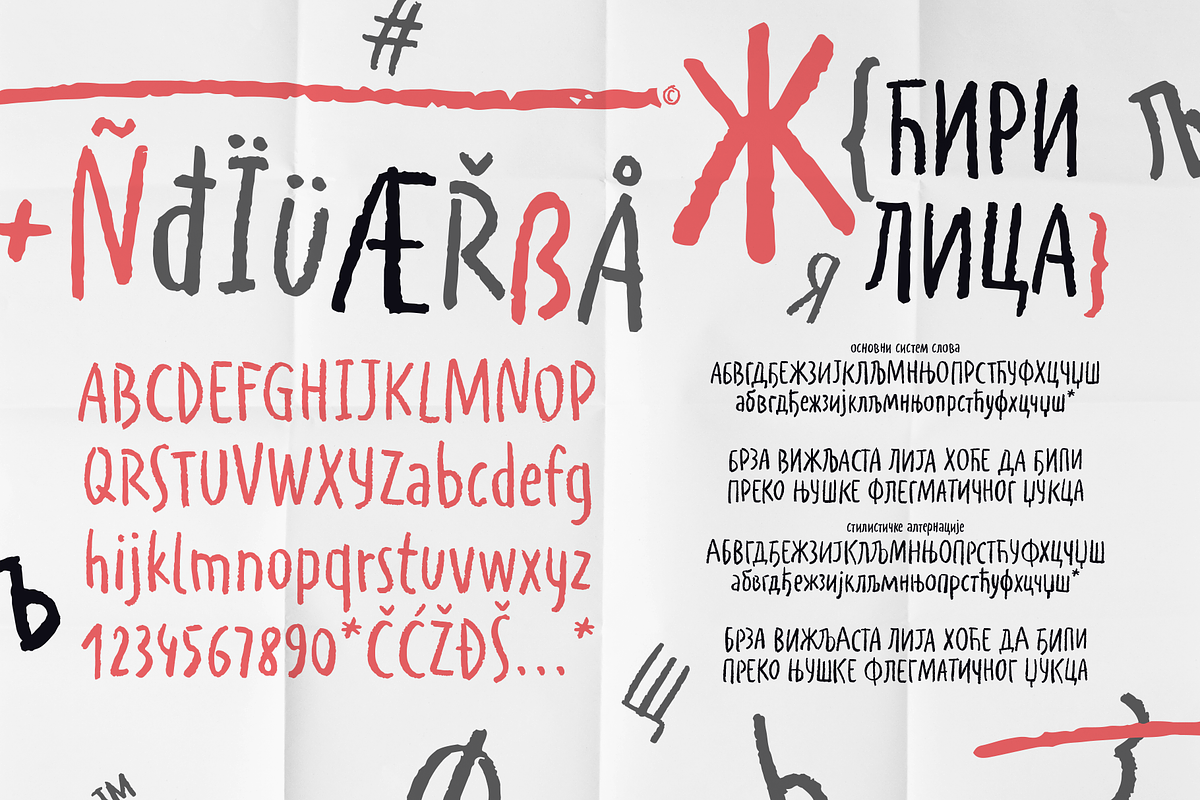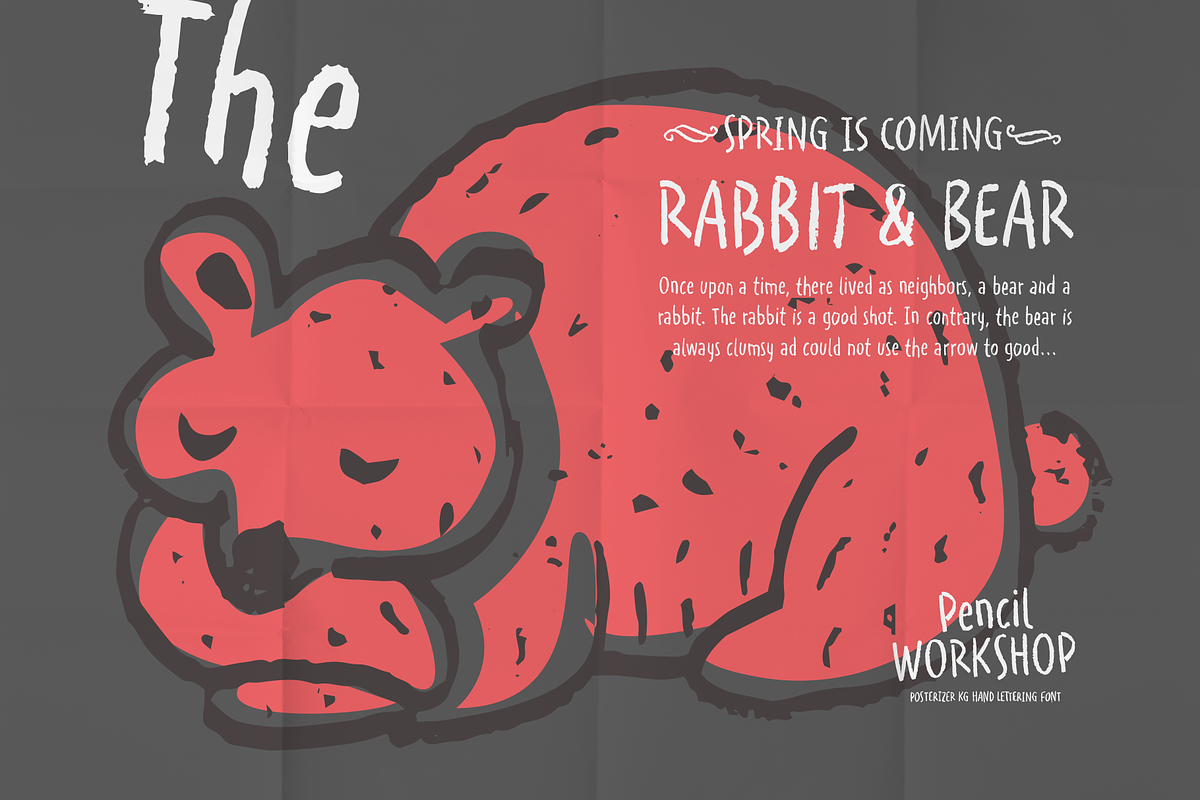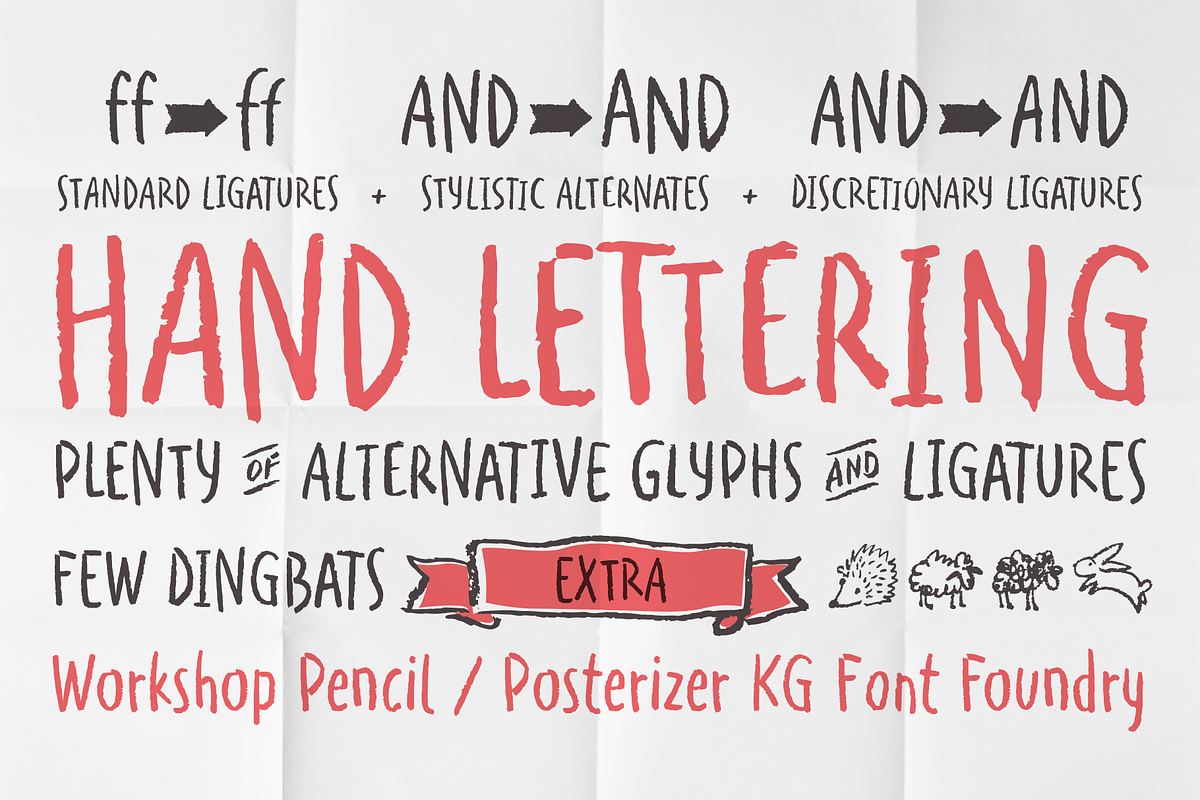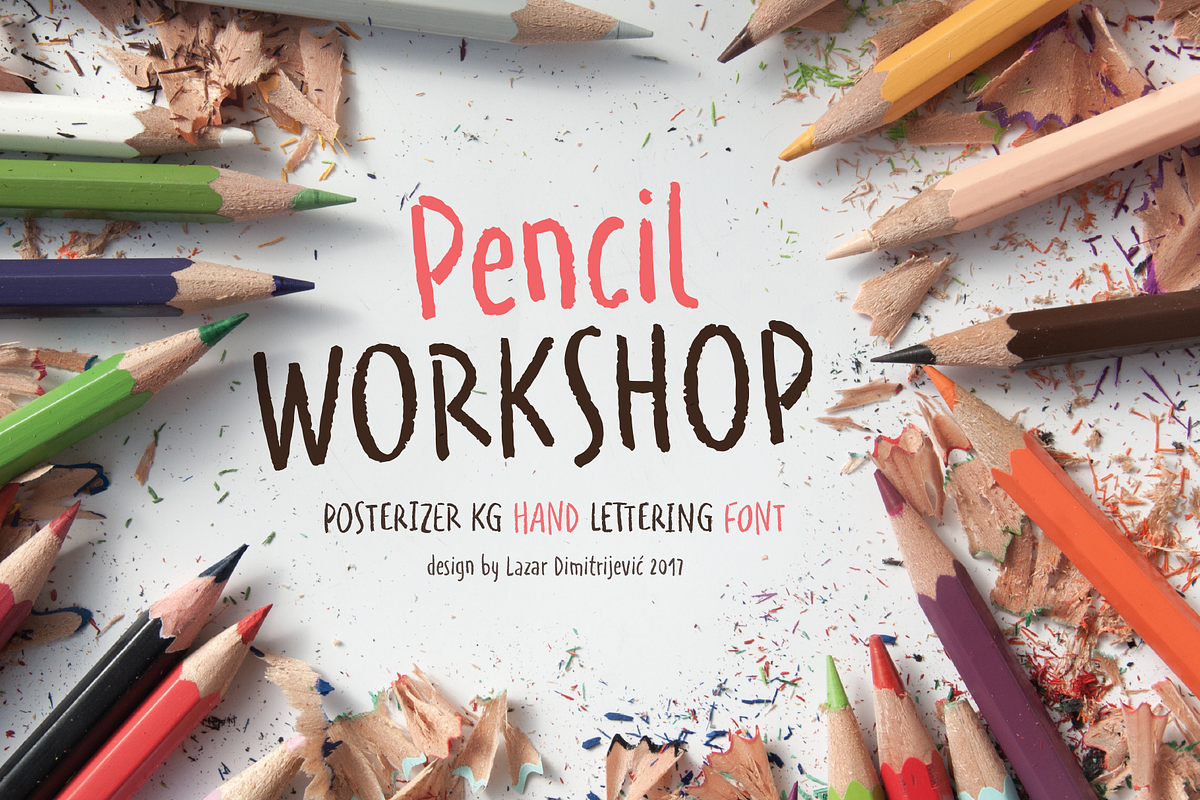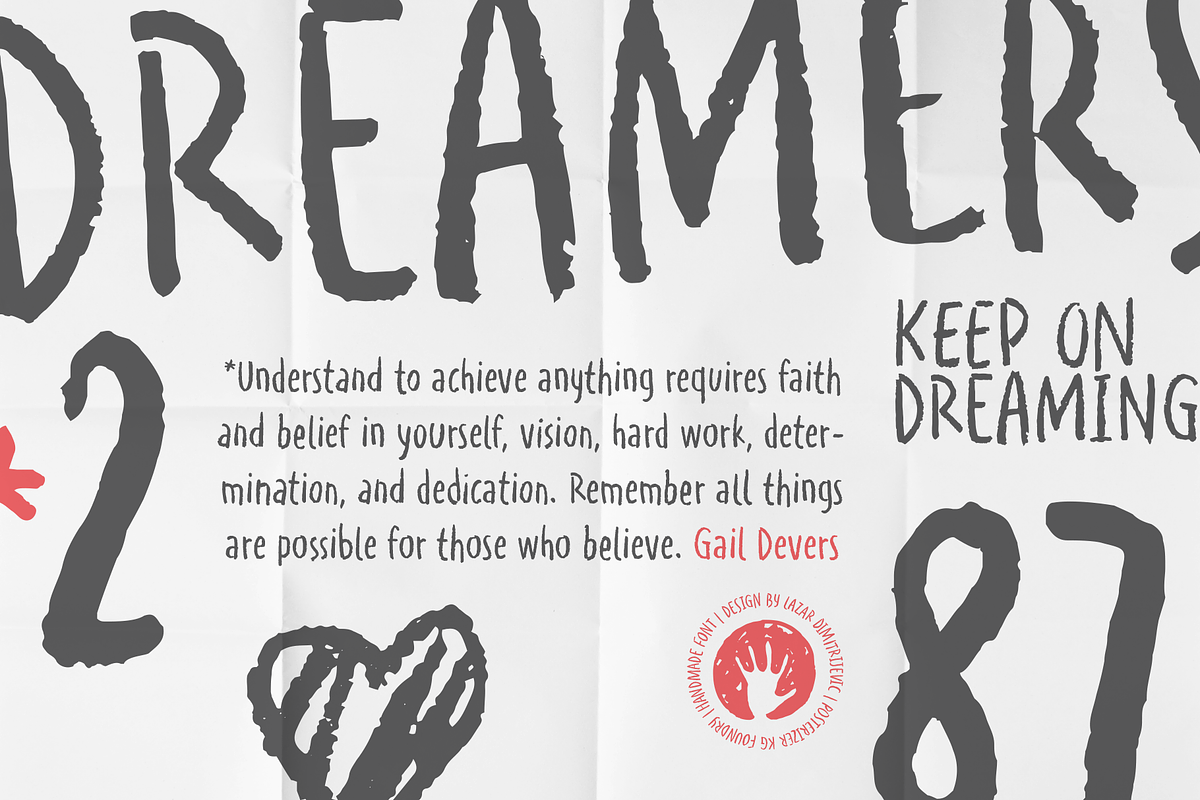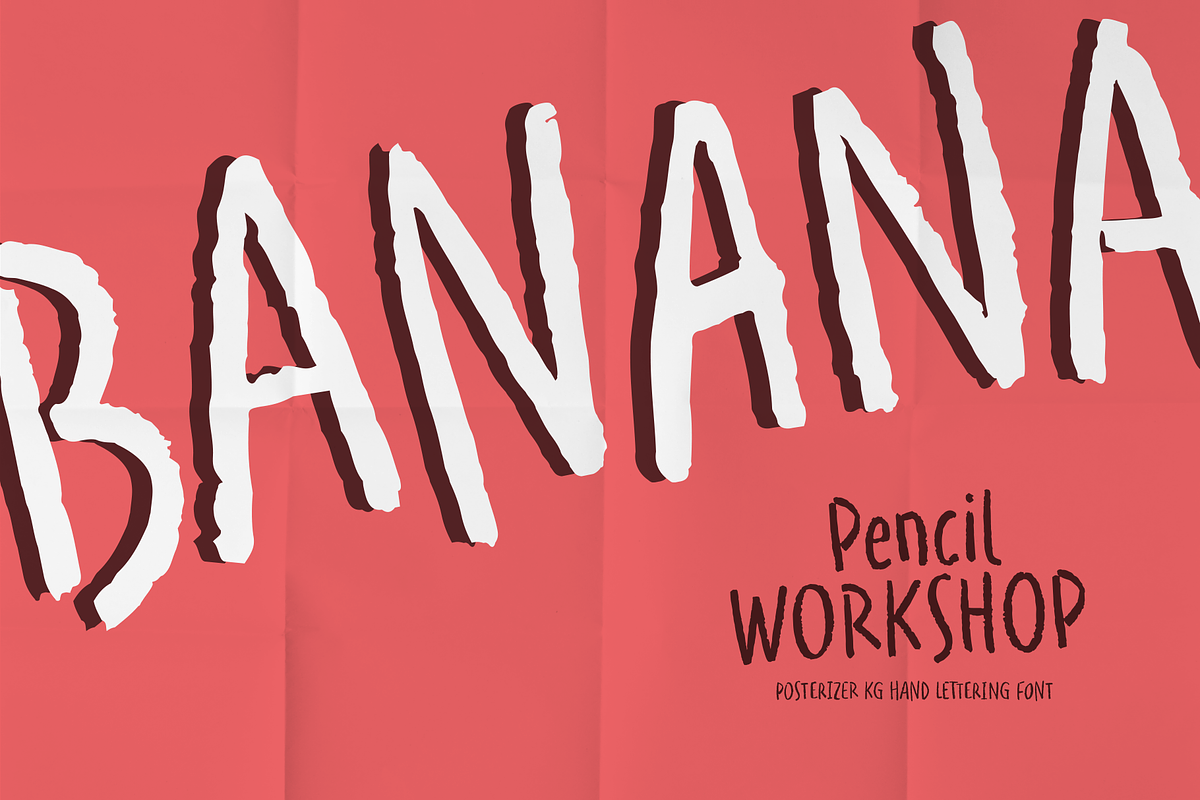
WORKSHOP Pencil
WORKSHOP Pencil is one more of WORKSHOP handwritten fonts, created to imitate a manuscript written with crayon or pencil. You can use the alternates and ligatures to give your design a realistic, hand-painted look. If you find a single repeating glyph, you can change that by toggling between Stylistic Alternates. There are Cyrillic glyphs and a few Dingbats in the same style. WORKSHOP Pencil is the perfect choice for children's literature, posters, and other naturally beautiful things.